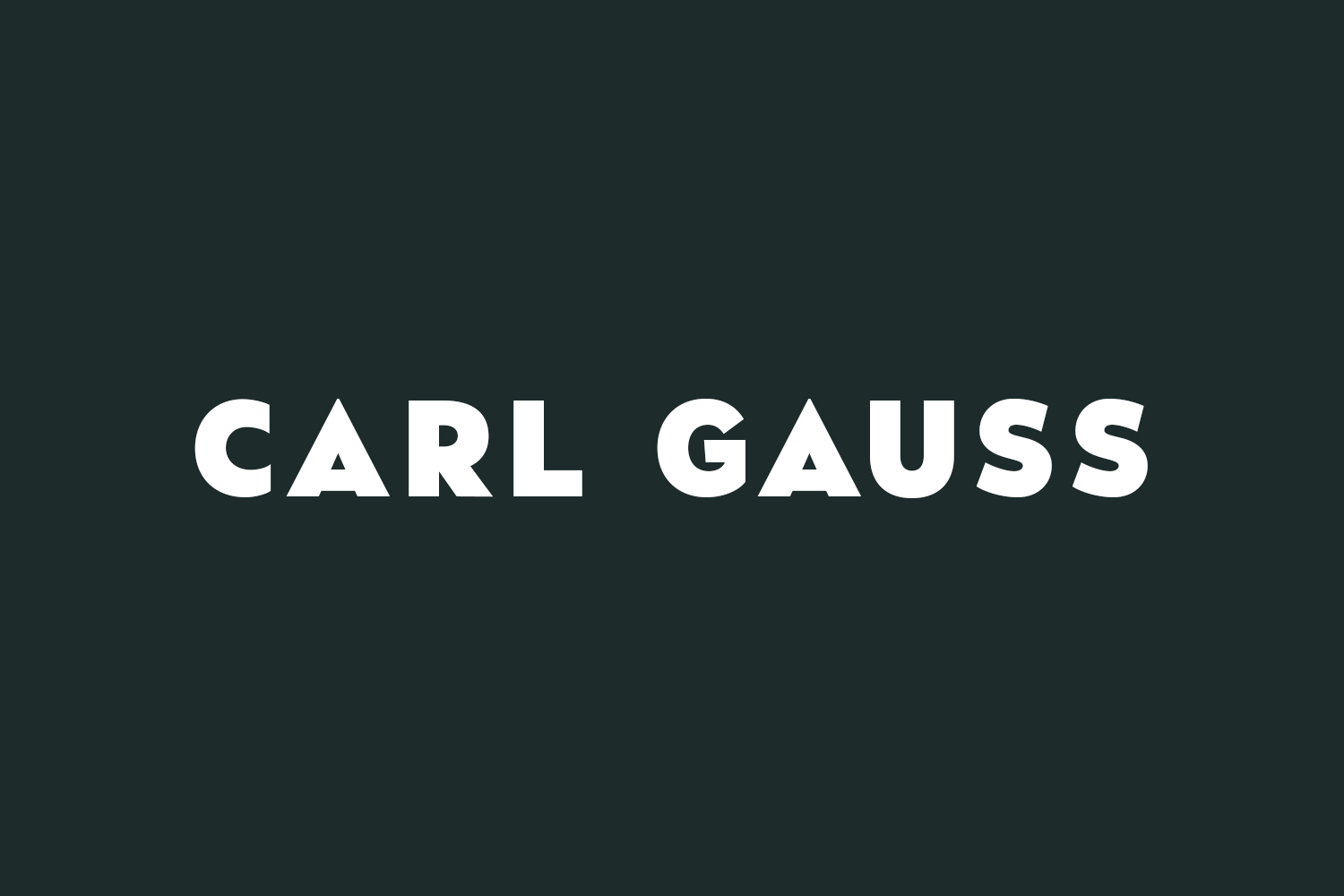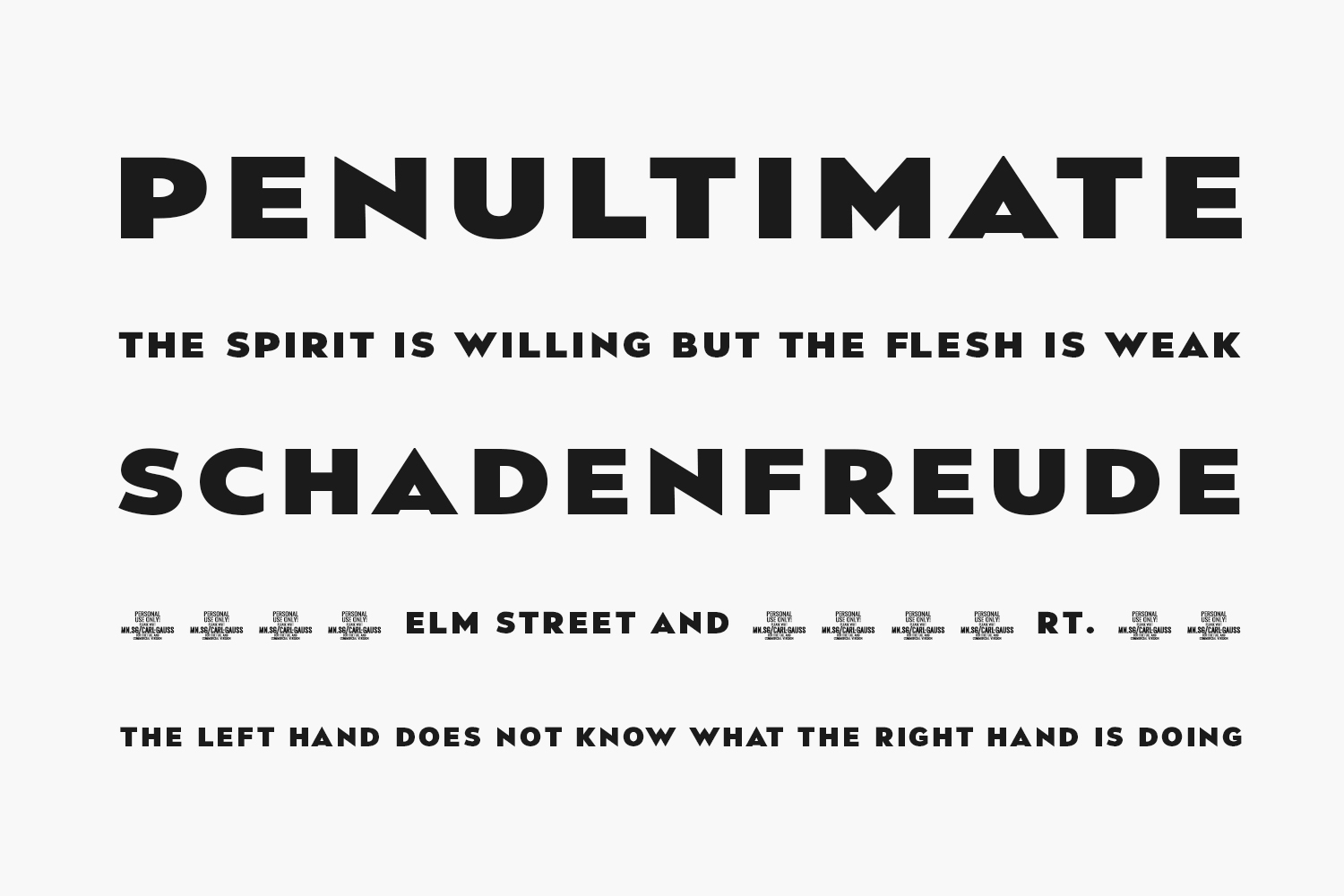
Carl Gauss Free Font is a font that speaks to the modern age with its sleek and minimalist design. Like the famous mathematician after whom it is named, this sans serif font is precise and calculated, with every line and curve carefully crafted for maximum impact. The letters are tall and slim, with a subtle curvature that gives them a sense of fluidity and grace. This font is perfect for those who want to make a statement without being too flashy or ostentatious. Whether you’re creating a website for a tech startup or designing a brochure for a scientific conference, Carl Gauss Free Font will help you convey your message with clarity and confidence. Marcellas Free Font is a demo and free for personal use only. Please purchase the full version for commercial use.